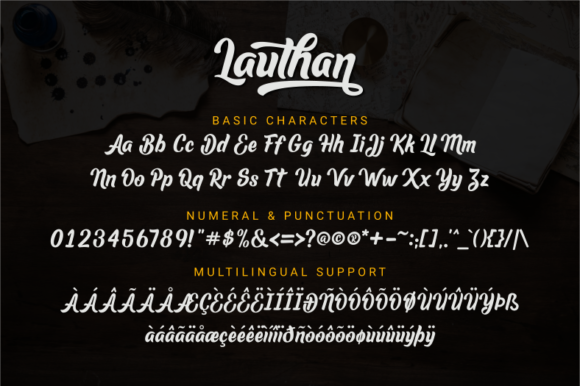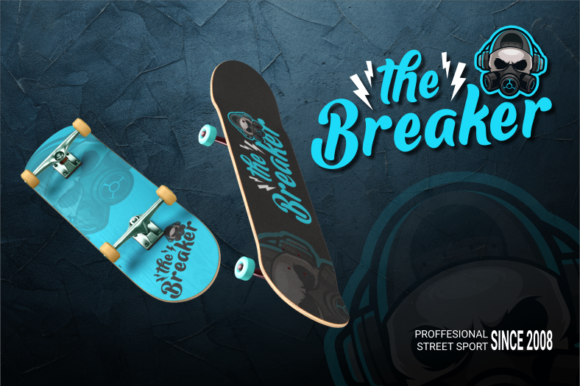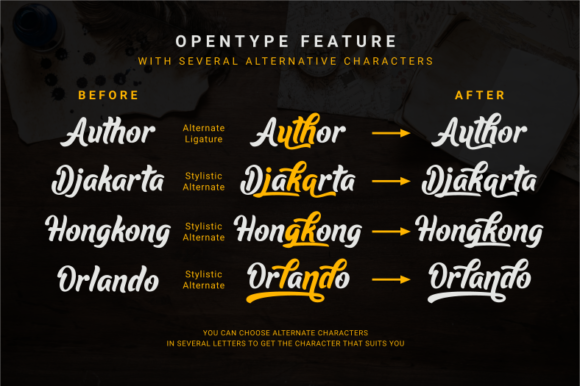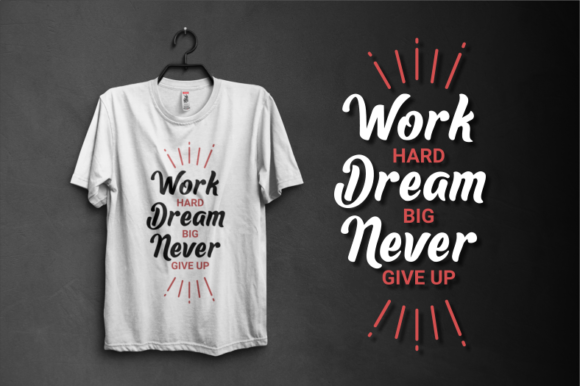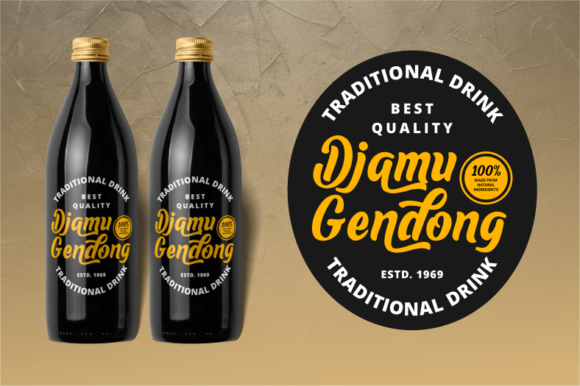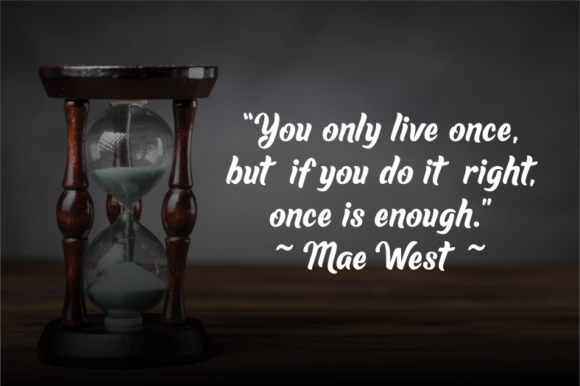
Introduction to Lauthan Font
Lauthan is a bold handwritten font, carefully handcrafted to become a true favorite.
Its casual charm makes it appear wonderfully down-to-earth, readable and, ultimately, incredibly versatile .